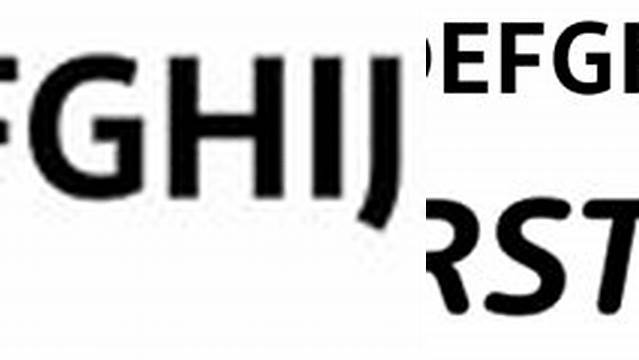
Diodrum Semibold: Free Font Download For Modern Designs
Hey guys! Are you on the hunt for a sleek, modern font that's also free? Look no further! In this article, we're diving deep into the world of Diodrum Semibold, a font that's been making waves in the design community. We’ll explore everything from its unique characteristics to why it’s such a fantastic choice for various projects. Plus, we'll guide you on how to download it for free and even touch on its licensing, ensuring you're all set to use it without any hiccups. So, buckle up and let's get started!
What Makes Diodrum Semibold So Special?
Diodrum Semibold isn't just another font; it's a carefully crafted typeface that blends modern aesthetics with practical readability. What sets it apart? Well, for starters, its geometric design gives it a clean and contemporary feel. The semi-bold weight adds a touch of authority and presence, making it ideal for headlines and titles. But it's not just about looks; Diodrum Semibold also excels in readability. The letterforms are designed with enough distinction to ensure clarity even at smaller sizes, making it a versatile choice for both print and digital applications.
One of the key characteristics of Diodrum Semibold is its versatility. It’s equally at home in a corporate brochure as it is on a trendy website. The clean lines and balanced proportions make it easy on the eyes, ensuring your message is conveyed clearly and effectively. Whether you're designing a logo, crafting a presentation, or working on a website layout, Diodrum Semibold can seamlessly integrate into your project and elevate its overall appeal. It's a font that speaks volumes without shouting, making it perfect for projects that require a touch of sophistication and professionalism. This adaptability is a major reason why designers across various fields are increasingly turning to Diodrum Semibold as their go-to font.
Moreover, the attention to detail in Diodrum Semibold is truly commendable. Each glyph is meticulously designed to ensure consistency and harmony across the entire typeface. The spacing between letters, the weight of the strokes, and the overall rhythm of the font have all been carefully considered. This level of craftsmanship results in a font that not only looks great but also feels great to work with. When you use Diodrum Semibold, you're not just using a font; you're using a tool that has been honed and refined to perfection. This makes the design process smoother and the final product more polished. The subtle nuances in its design make it stand out from generic fonts, adding a unique touch to your projects. Diodrum Semibold's ability to maintain clarity and readability across different media and sizes further solidifies its reputation as a top-tier font choice.
Why Choose Diodrum Semibold for Your Projects?
Choosing the right font can make or break a design. So, why should you specifically consider Diodrum Semibold? Well, its modern and clean aesthetic makes it a fantastic choice for a wide range of projects. Imagine using it for your website headers – the boldness ensures they stand out, grabbing your visitor's attention instantly. Or picture it in a sleek brochure, where its readability will ensure your message gets across clearly. It’s also a great option for logos, adding a touch of professionalism and contemporary flair.
One of the most compelling reasons to choose Diodrum Semibold is its versatility. It’s not limited to a specific industry or style. Whether you’re working on a tech startup’s branding, a fashion magazine layout, or an educational website, Diodrum Semibold fits right in. Its neutral yet stylish appearance complements a variety of visual elements, making it a reliable choice for any project. The font's balanced design ensures it doesn't overpower other design elements but rather enhances them. This adaptability saves you time and effort in font selection, allowing you to focus on other aspects of your design. Its ability to maintain legibility across different media, from print to digital, is another significant advantage, ensuring consistency in your branding and communication.
Another key benefit of Diodrum Semibold is its readability. In the digital age, where users often scan content quickly, readability is paramount. Diodrum Semibold's clear and distinct letterforms make it easy to read even in smaller sizes or on screens with varying resolutions. This is crucial for ensuring your message is effectively communicated, whether it’s on a website, a mobile app, or a printed document. The font's well-defined shapes and ample spacing contribute to a comfortable reading experience, preventing eye strain and keeping your audience engaged. In a world where information overload is common, Diodrum Semibold helps your content stand out by being effortlessly readable and visually appealing. This focus on readability makes it an invaluable asset for any project aiming to deliver information clearly and concisely.
Whether you're a seasoned designer or just starting out, Diodrum Semibold offers a blend of style and functionality that makes it a valuable asset for any project. Its clean lines and balanced proportions contribute to a professional and polished look, while its excellent readability ensures your message is conveyed clearly and effectively. The font's adaptability makes it suitable for a wide range of applications, from websites and branding materials to print documents and presentations. Its semi-bold weight provides a strong visual presence without being overwhelming, making it ideal for headlines and titles that need to grab attention. And when paired with the right complementary typeface, Diodrum Semibold can truly shine, enhancing the overall aesthetic of your design. So, why not give it a try? Download Diodrum Semibold today and see how it can transform your next project. You might just find that it becomes your new favorite font.